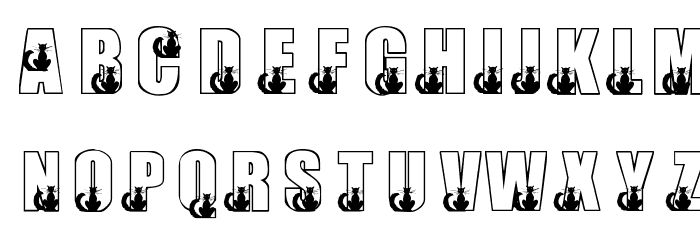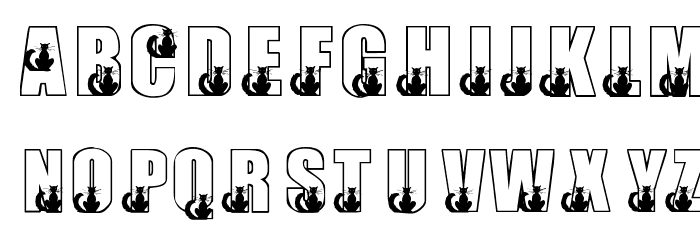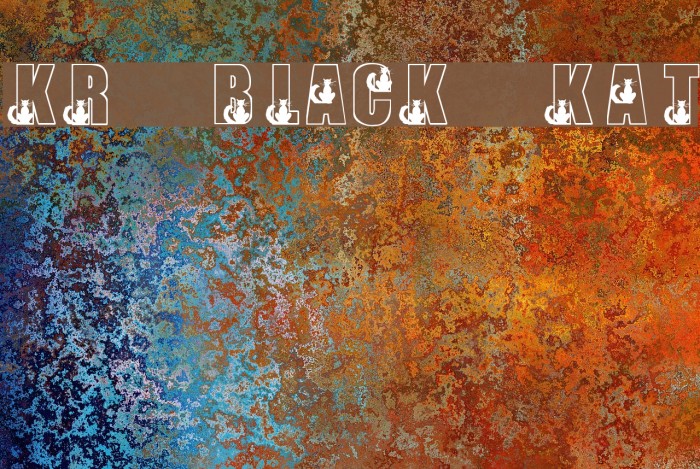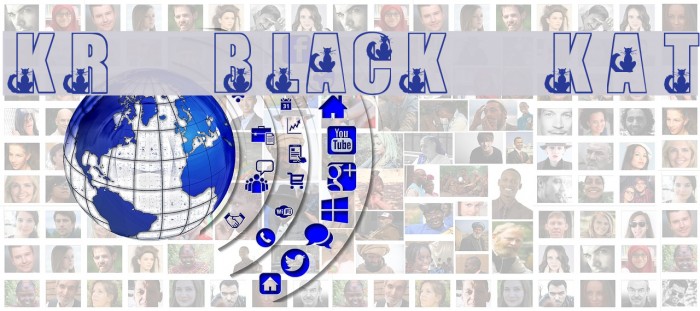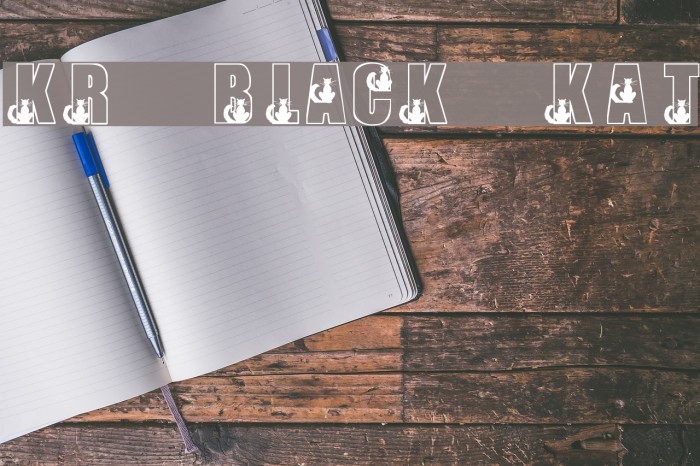
KR Black Kat Font
This font features a playful and whimsical design, incorporating silhouettes of black cats within each letter. The characters are bold and uppercase, with a decorative style that adds a unique and fun element to the text. The cats are positioned at the bottom of each letter, creating a cohesive and thematic appearance. The font is ideal for projects that require a touch of humor or a Halloween theme, as the cat motif is both charming and slightly mysterious. The overall look is eye-catching and memorable, making it suitable for creative and informal applications.
A bold, decorative font with black cat silhouettes integrated into each letter.
- Proposed Projects: Perfect for Halloween-themed designs, children's book covers, party invitations, and playful branding.
- Overall Style: Playful, Whimsical